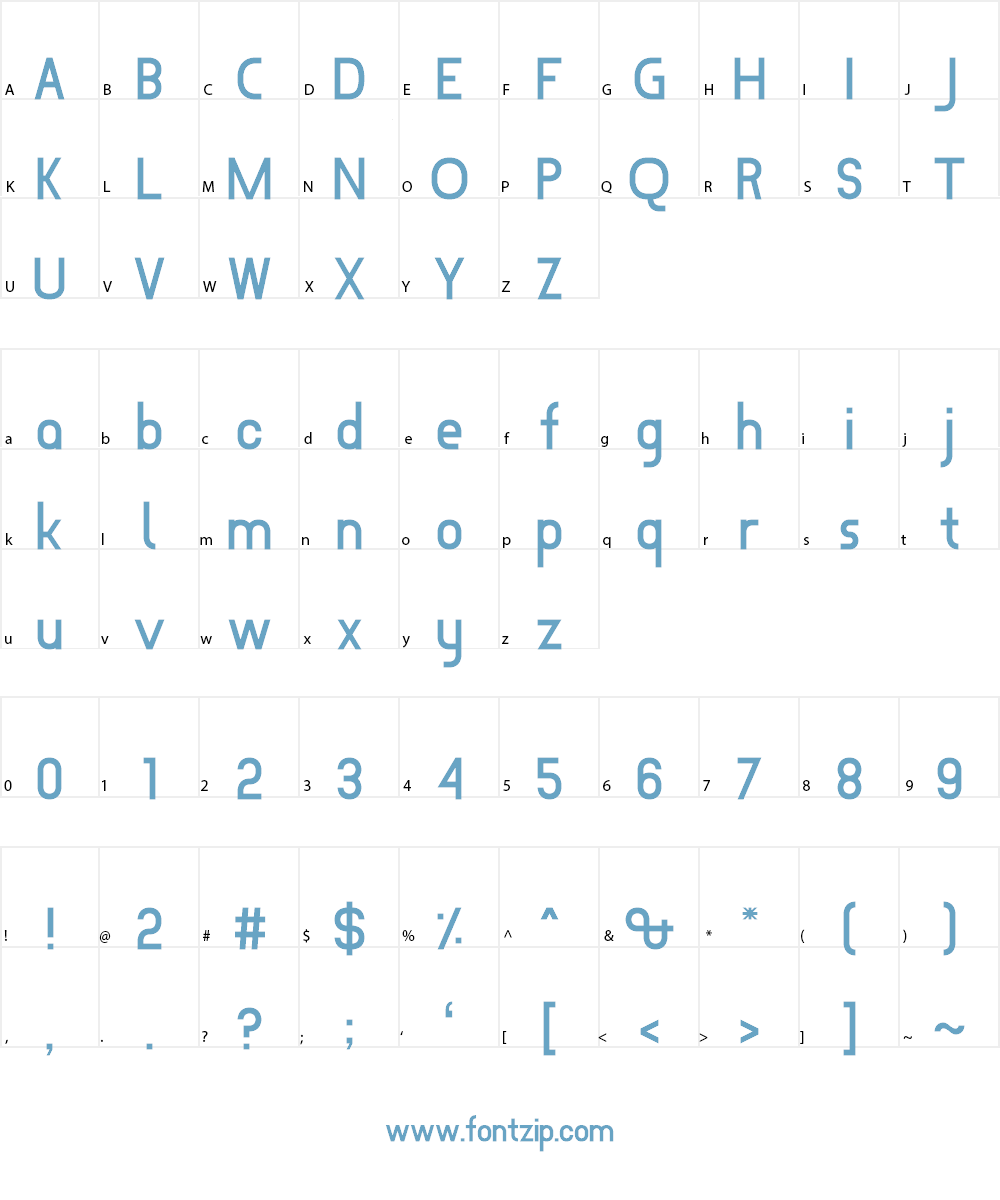
So, I've been working on Armenian and Georgian, but the software I use doesn't seem... to be strong enough to process that many glyphs. I've spoken to the developer, and I was told that, even though version 1.x was never designed to handle multiple font(type)s at once, they are working on 2.0. Then, I can, for example, work on a certain set, save it, delete it, until I have ~20 fonts each with a unique set, which I can then combine into one huge typeface. So, for now, this font is on hold. Whenever that update happens to be, I will resume working on it. Thank you!
Hyatheus, a simple, bold, and yet unique font - recommended to use with a font size of 20 or bigger. Enjoy! Idea, Design, and everything else made by q_Maxi_p.
It currently contains all
-Basic Latin
-Latin Supplement
-Latin Extended A
-Latin Extended B*
-IPA Extensions
-Spacing Modifying Characters
-Diacritical Mark Generation
-Greek & Coptic
-Cyrillic
-Cyrillic Supplement
Characters, as of version 1.2.
If you want any specific character set added, just tell me, and I'll start working on it right away!
Besides that, I'll prioritize on extending Punctuation and script supplements- and I'll probably add other simple scripts such as Armenian in the near future.